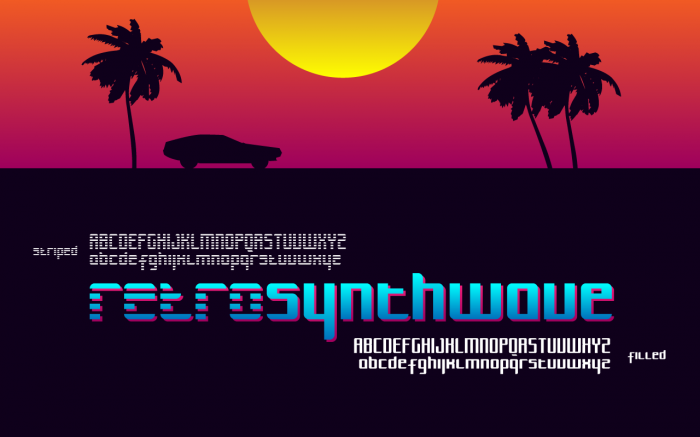
This and the filled version have a retro-spaceage look with some disco touch. The sample looks like an early 80s design :) So I made this to add:
@aeolien Yes! This font is inspired by this 80's disco vibe, mostly on a music genre called retrowave/synthwave which brings back the 80's style of music and turns it retrofuturistic ;)
cool. i love newretrowave ish